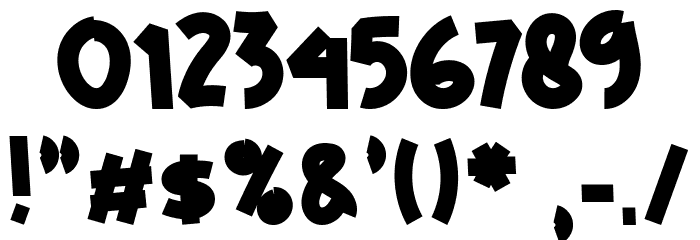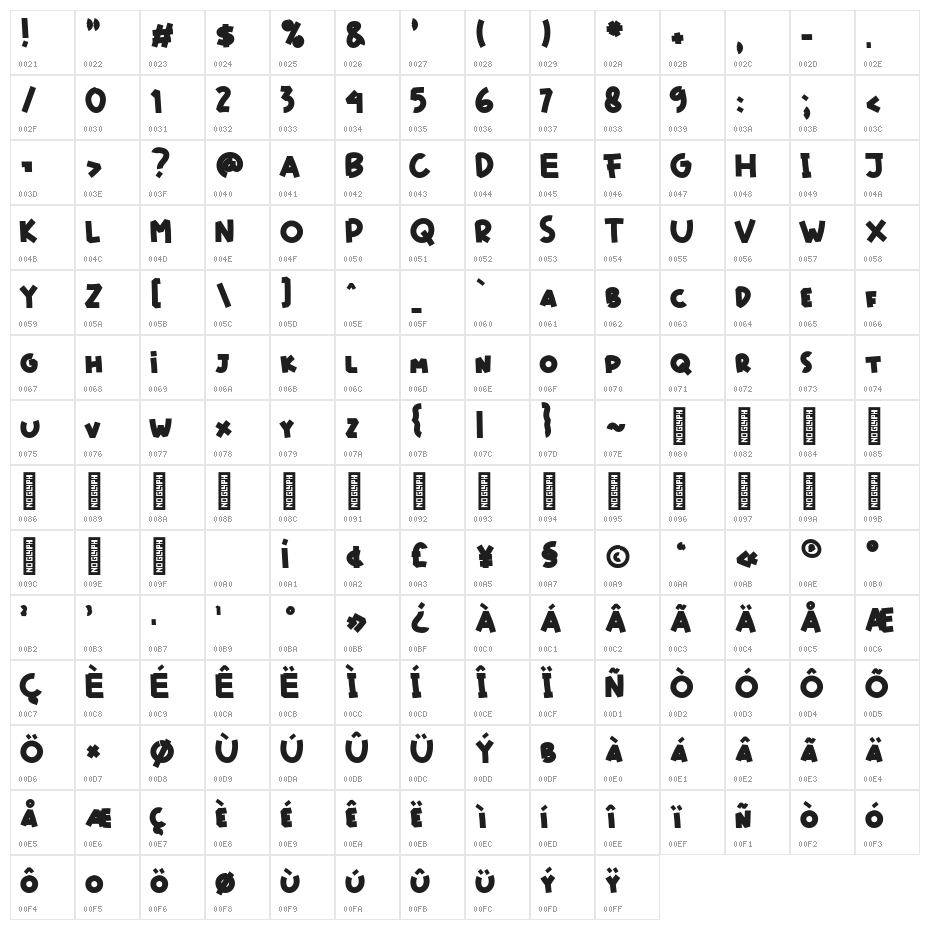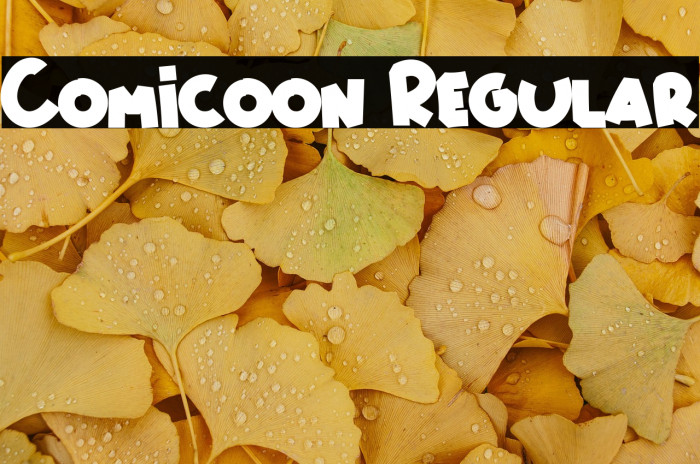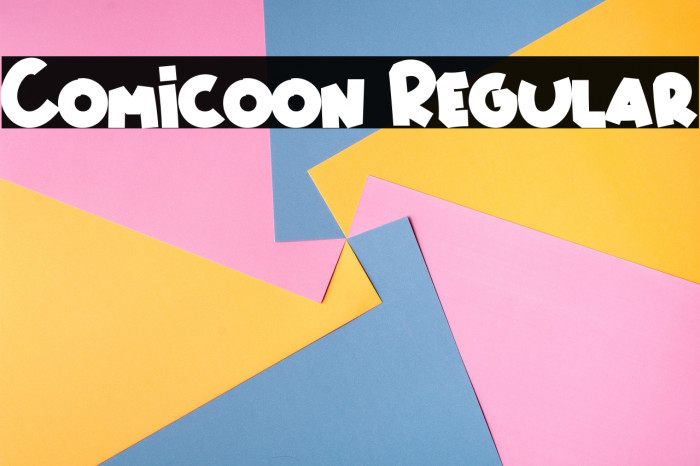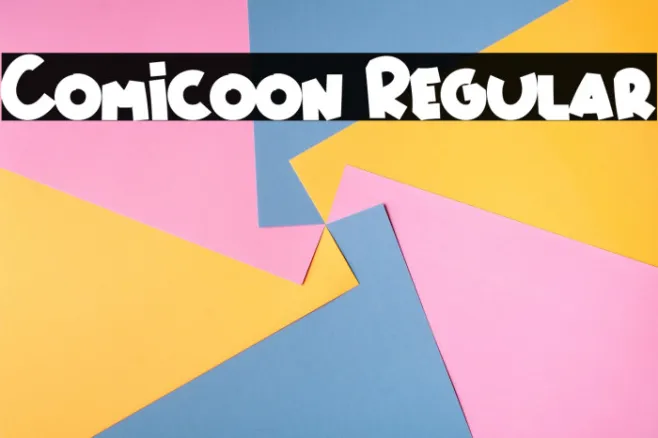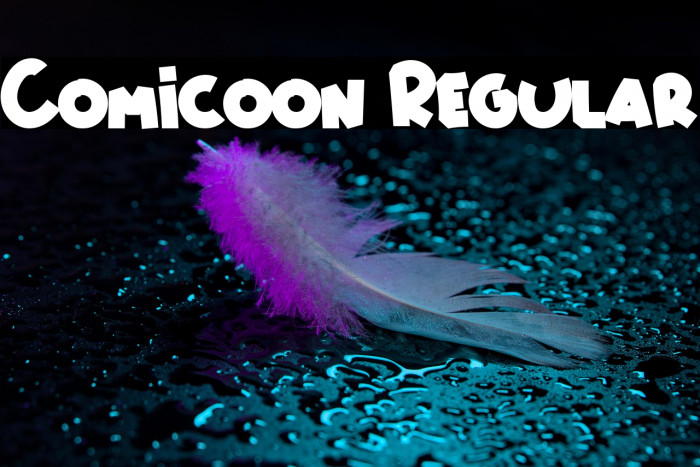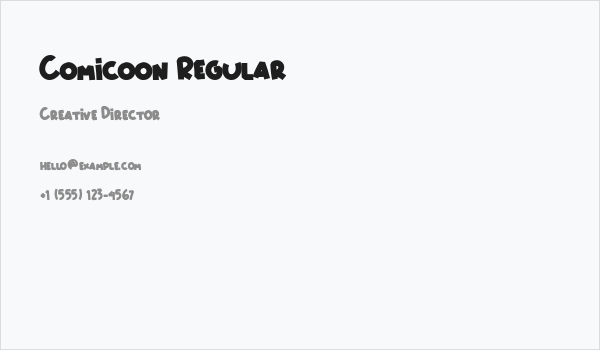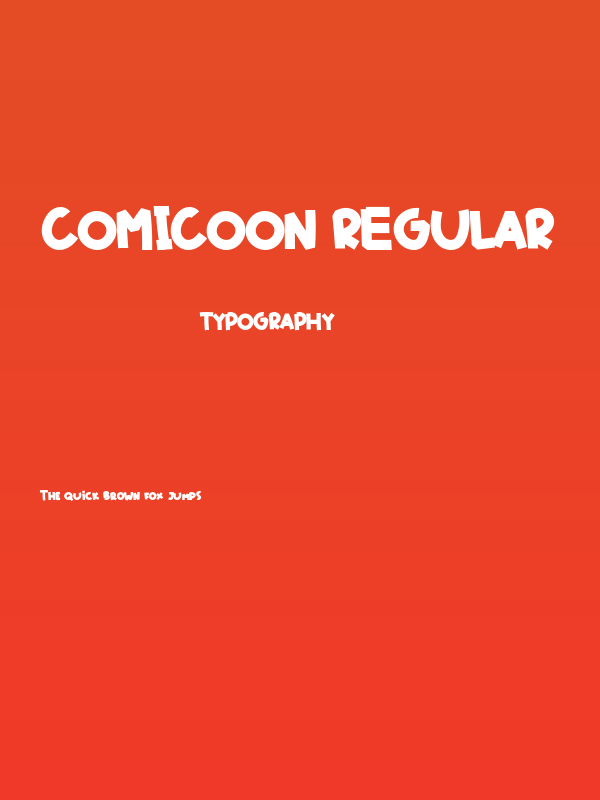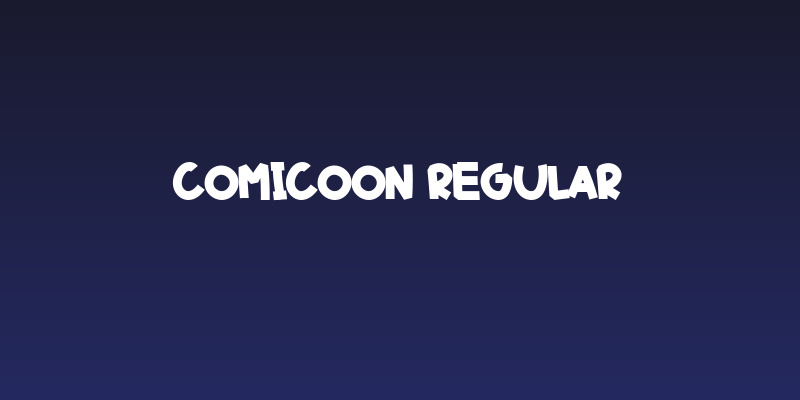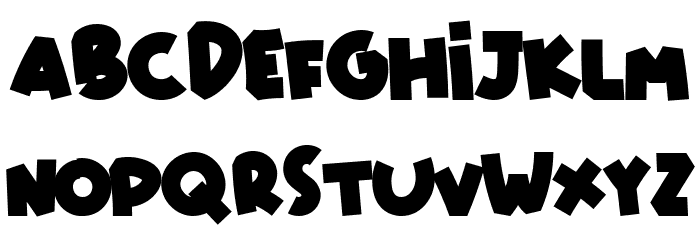
Comicoon Regular Font
Comicoon Regular Description
This playful and bold font features a cartoonish style with exaggerated curves and a slightly irregular baseline, giving it a lively and dynamic appearance. The characters are thick and substantial, with rounded edges that add a friendly and approachable feel. The uppercase and lowercase letters maintain a consistent style, while the numerals and special characters complement the overall whimsical design. Its unique and eye-catching aesthetic makes it suitable for projects that require a fun and informal touch.
| Overall Style | Playful, Cartoonish |
| Proposed Projects | Ideal for children's books, comic strips, playful branding, and party invitations. |